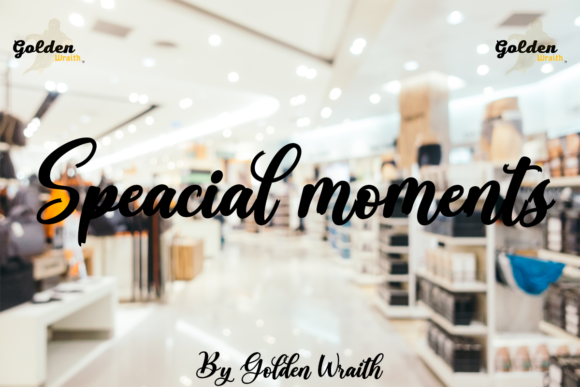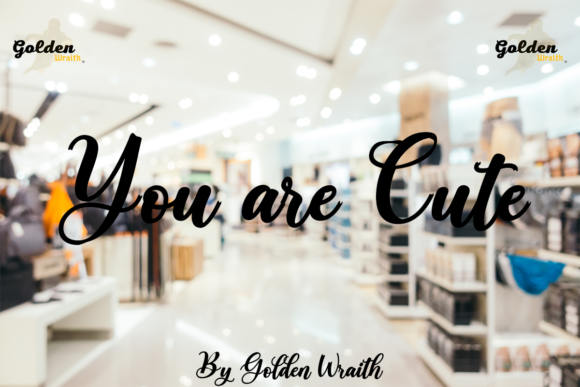
Introduction to Greasy Font
Have you ever been working on a creative project, and the right font just eludes you? You’ve got the perfect idea, but the words on the page just don’t feel quite right. For designers, finding that elusive font can be the difference between a great design and an amazing one. That’s where the Greasy Font comes in – a flowing, elegant handwritten font that’s perfect for adding a touch of sophistication to your work.
The Greasy Font is more than just a design resource, it’s a game-changer. With its high-quality, unique style, it’s the perfect addition to any creative project. Whether you’re working on a design with a transparent background or a bold, eye-catching layout, the Greasy Font is sure to make your work stand out. And the best part? It’s available for free download, making it an invaluable resource for designers of all levels.
Honest Review: Greasy Font
As a designer, I’m always on the lookout for high-quality design resources that can elevate my creative projects. Recently, I stumbled upon the Greasy Font and was intrigued by its potential.
What works well: ✨ The Greasy Font has a unique, retro vibe that’s perfect for vintage-inspired designs. The font is highly customizable, allowing me to adjust the size, color, and spacing to fit my needs. The transparent background option is also a nice touch, making it easy to overlay on top of images or other design elements.
What doesn’t work well: ⚠️ The font could benefit from a more comprehensive character set. I found myself limited in my ability to use it for certain projects due to the lack of certain characters and symbols.
Overall, I’d give the Greasy Font 4 out of 5 stars. While it’s a solid addition to my design resource library, its limitations prevent it from being a go-to font for all my projects. Still, I appreciate its unique aesthetic and will continue to use it for certain creative endeavors.
- Unique, retro aesthetic
The Greasy Font is a high-quality design resource that can add a unique touch to your creative project. With its sleek and stylish appearance, it’s perfect for designers looking for a free download that can elevate their work.
To get the most out of Greasy Font, experiment with different font sizes, colors, and styles to create a unique look that complements your design. You can also use it in combination with other design elements to create a cohesive and visually appealing project.
The Greasy Font is perfect for a variety of creative projects, including logos, brochures, business cards, and social media graphics. Its high-quality design and transparent background make it an ideal choice for designers who want to create professional-looking designs with ease.